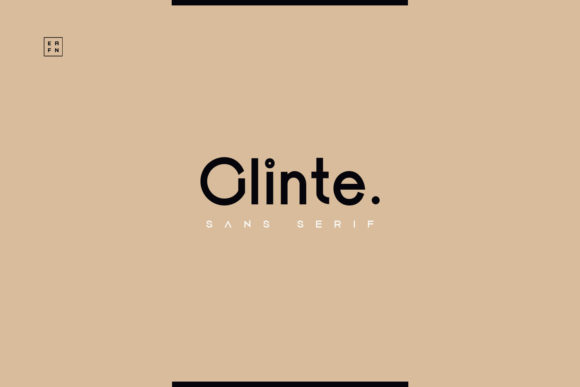
Glinte Font: The Ultimate Minimalist Display Font for Modern Designs
In the world of typography, fonts play a crucial role in conveying the tone and aesthetic of a design. For designers and crafters looking for a modern touch, Glinte Font is an excellent choice. This minimalist and clean display font has gained popularity for its simplicity, elegance, and versatility. In this article, we’ll explore the features, benefits, and uses of Glinte Font, and why it’s an ideal choice for your next design project.
What is Glinte Font?
Glinte Font is a sans-serif display font designed to provide a clean and minimalist look to your designs. Its simple and elegant structure makes it perfect for a wide range of applications, from web designs and business cards to posters, brochures, and more. The font’s creator aimed to develop a typeface that would cater to the needs of modern designers, who seek simplicity and sophistication in their work.
Key Features of Glinte Font
- Minimalist Design: Glinte Font boasts a minimalist design, characterized by clean lines, simple shapes, and a lack of ornate details. This makes it an excellent choice for designers who prefer a subtle and understated look.
- Clean and Legible: The font’s clean design ensures excellent legibility, even at small sizes. This makes it suitable for use in body text, headings, and titles.
- Versatile: Glinte Font is highly versatile and can be used in various design projects, including web designs, print materials, and digital media.
- Modern Aesthetic: The font’s modern aesthetic makes it perfect for designers who want to create a contemporary look and feel in their designs.
Benefits of Using Glinte Font
Using Glinte Font in your design projects offers several benefits, including:
- Enhanced Readability: The font’s clean design and simple structure ensure excellent readability, making it easy for your audience to understand your message.
- Professional Look: Glinte Font gives your designs a professional and polished look, making it ideal for business cards, resumes, and other professional materials.
- Flexibility: The font’s versatility allows you to use it in various design projects, from web designs to print materials.
- Time-Saving: Glinte Font is easy to use and doesn’t require a lot of manual adjustments, saving you time and effort in the design process.
Use Cases for Glinte Font
Glinte Font is suitable for a wide range of design projects, including:
- Web Designs: Use Glinte Font to create modern and clean web designs that are both visually appealing and user-friendly.
- Business Cards: The font’s professional look makes it an excellent choice for business cards, resumes, and other professional materials.
- Posters and Brochures: Glinte Font is perfect for creating eye-catching posters and brochures that require a modern touch.
- Digital Media: Use the font in your digital media projects, such as social media graphics, email newsletters, and more.
| Font Name | Glinte Font |
| Author | BeeType |
In conclusion, Glinte Font is an excellent choice for designers and crafters looking for a minimalist and clean display font. Its simplicity, elegance, and versatility make it perfect for a wide range of design projects, from web designs to print materials. With its enhanced readability, professional look, and flexibility, Glinte Font is an ideal choice for anyone seeking a modern touch in their designs.